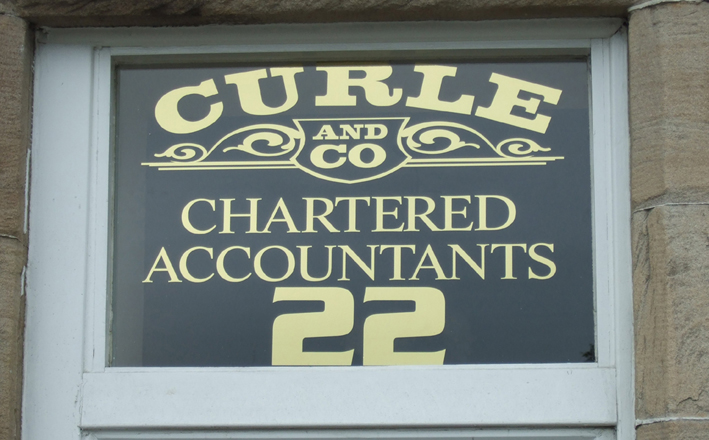
Can anyone identify the fonts used in this image. The "CHARTERED ACCOUNTANT" is similar to Times New Roman but if anyone knows the exact font that would be great.
As for the numbers "22" and "CURLE" any help would be great I don’t have a clue.
I’m just guessing but I think Curle is Rockwell and the 22 is Serpentine.
I Know this one Gary, just done a bunch of embroidered tshirts yesterday… it’s perpetua, if ou haven’t got it let me know but should be on your pc
hmmm just looked the U is wrong! the other one I was recommended for this was ITC cockerel
I now have the 22 and perpetua is close enough for the Chartered Accountants…still working on the CURLE, Rockwell was not quite close enough.
Curle looks like one of the Clarendons, and I think you were closer with Times for the other one.
Curle might also be a Mike Stevens font.
Big Sur.
Here it is typed out and converted to curves.
Cheers Jamie Clarendons was looking good enough but Jill has nailed it with the Mike Stevens font.
But it looks like the right font to me.
I think the scrolls are VectorArt.